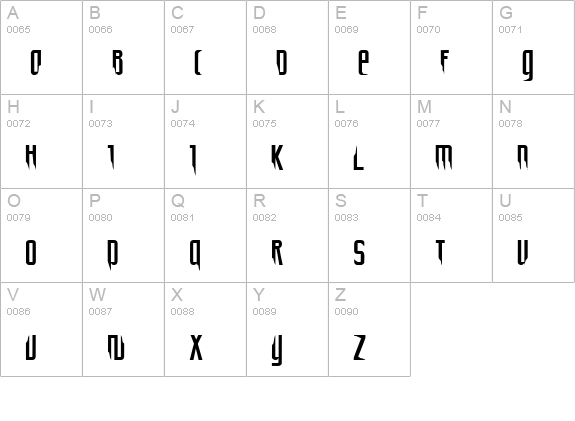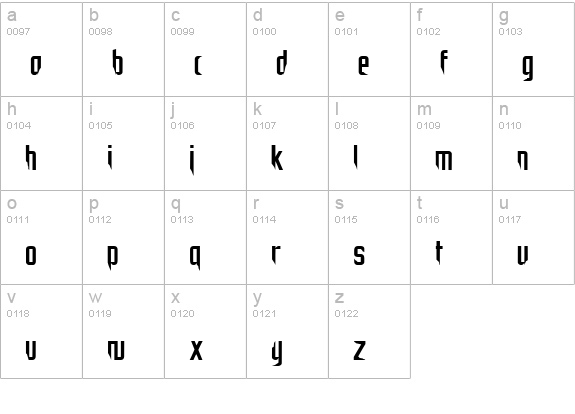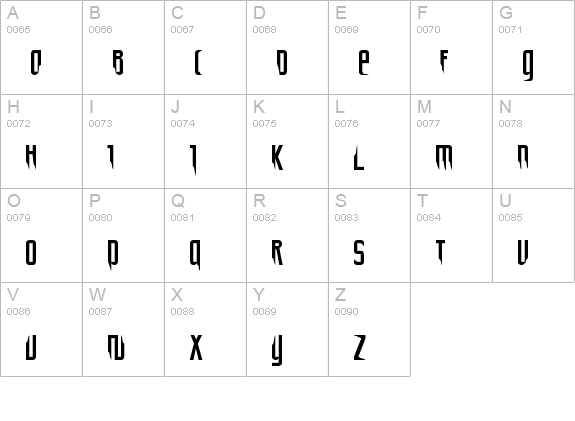
Desctructura Font Details
Destructura font is a modern and edgy typeface that brings a touch of boldness to any design project. With its sharp lines and unique character shapes, this font exudes a sense of strength and dynamism. Perfect for headlines, posters, and branding materials, Destructura font is sure to make a statement. The best part? Destructura font is available for free download at FontsMarket.com. Don't miss out on this opportunity to add a powerful and eye-catching font to your collection without spending a dime. Download Destructura font today and elevate your designs to the next level.